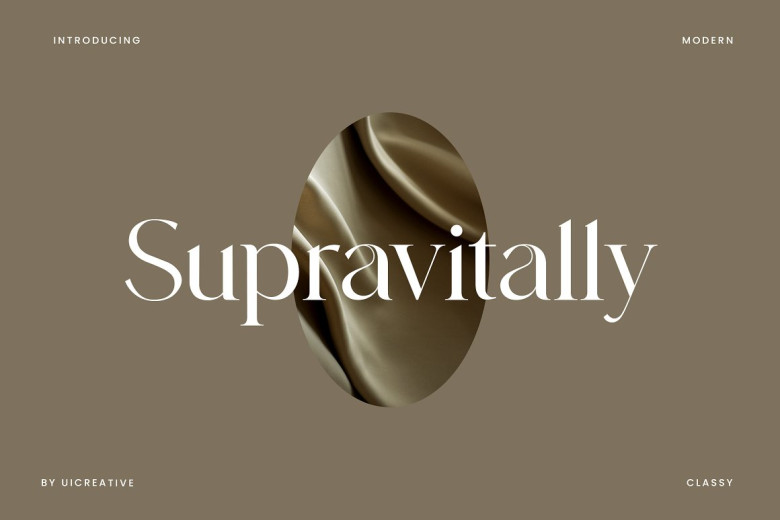
Supravitally Font
Introducing to you our new product Supravitally Luxury Serif Font. This modern serif font is as characters of delete beautiful stylish and modern. It caters to a variety of applications, such as signature, stationery, logo, wedding invitation pendulum hinge, typography quotes, magazine acne editorial or book cover the frontispiece engineering website headline or selection filtering engine operation documentation clothing label packaging design and the like. Also reflected in fashion-related branding or editorial design are both masculine and feminine qualities.
Supravitally Luxury Serif Font